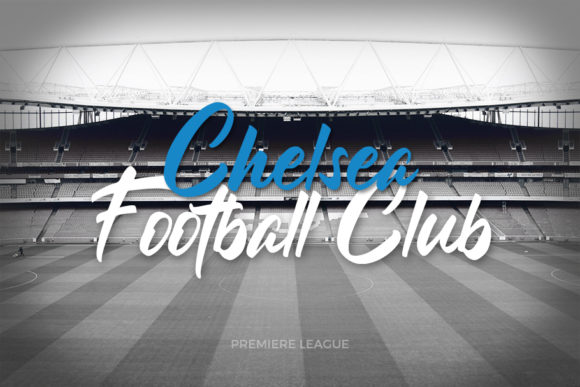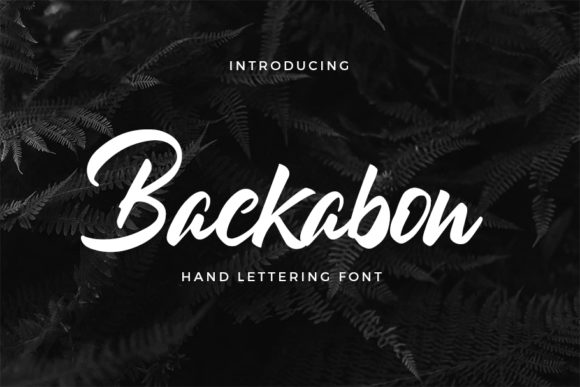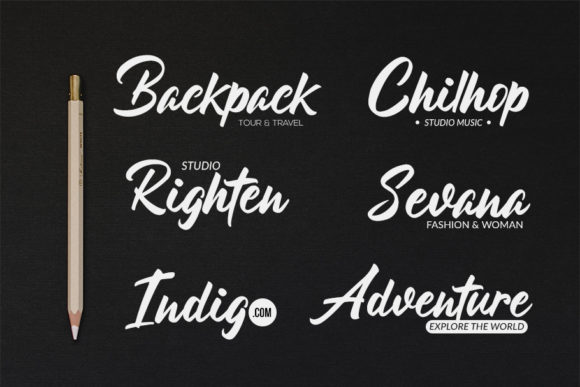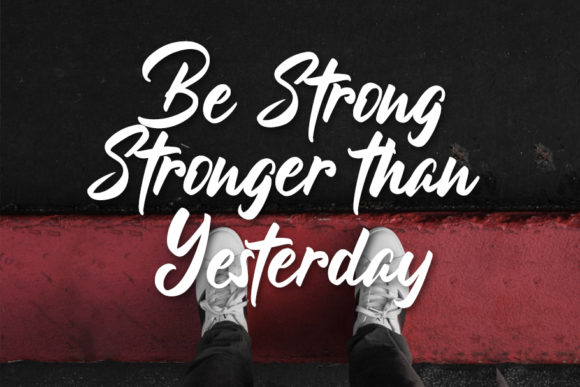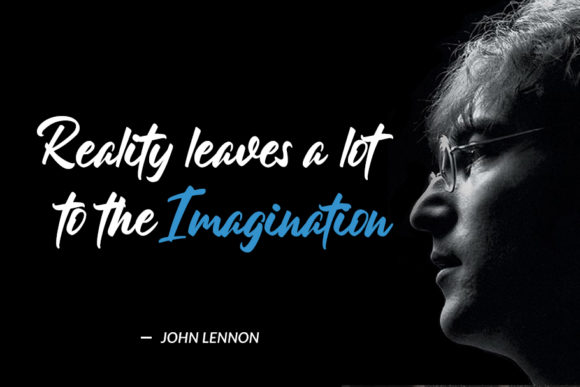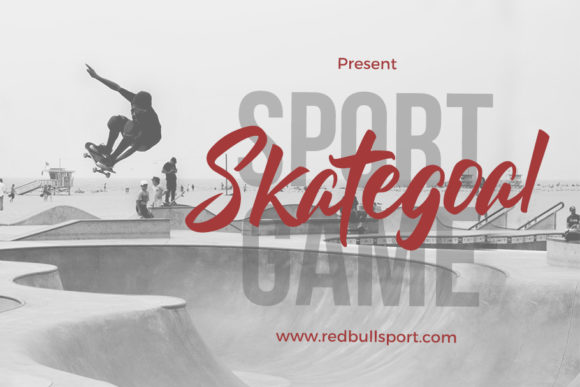
Introducing Backabon Font: The Ultimate Display Font for Bold and Urban Designs
Are you tired of using the same old fonts for your creative projects? Do you want to add a dynamic feel to your designs and make them stand out from the crowd? Look no further than Backabon Font, a unique and stylish display font that’s perfect for designers and crafters alike.
What is Backabon Font?
Backabon Font is a bold and urban display font that’s designed to make a statement. With its sleek and modern look, it’s perfect for adding a touch of sophistication and style to any creative project. Whether you’re working on a logo, brochure, or website, Backabon Font is sure to turn heads.
Key Features of Backabon Font
- Bold and Urban Look: Backabon Font has a bold and urban look that’s perfect for making a statement.
- Unique Design: With its unique design, Backabon Font is sure to stand out from the crowd.
- Dynamic Feel: Backabon Font adds a dynamic feel to any creative project, making it perfect for designers and crafters.
- Easy to Read: Despite its bold look, Backabon Font is easy to read, making it perfect for use in a variety of applications.
Uses for Backabon Font
Backabon Font is a versatile font that can be used in a variety of applications, including:
- Logos and Branding: Backabon Font is perfect for creating bold and eye-catching logos and branding materials.
- Posters and Flyers: Add a dynamic feel to your posters and flyers with Backabon Font.
- Websites and Blogs: Use Backabon Font to add a touch of style and sophistication to your website or blog.
- Social Media Graphics: Backabon Font is perfect for creating eye-catching social media graphics.
Why Choose Backabon Font?
There are many reasons why you should choose Backabon Font for your next creative project. Here are just a few:
- Unique Design: Backabon Font has a unique design that’s sure to stand out from the crowd.
- High-Quality: Backabon Font is a high-quality font that’s designed to look great in any application.
Tips for Using Backabon Font
Here are a few tips for using Backabon Font in your creative projects:
- Use it Sparingly: Because Backabon Font is a bold font, it’s best to use it sparingly to avoid overwhelming your design.
- Pair it with Other Fonts: Backabon Font looks great when paired with other fonts, so don’t be afraid to experiment.
- Experiment with Colors: Backabon Font looks great in a variety of colors, so don’t be afraid to experiment.
Backabon Font is a unique and stylish display font that’s perfect for designers and crafters alike. With its bold and urban look, it’s sure to add a dynamic feel to any creative project. Whether you’re working on a logo, brochure, or website, Backabon Font is a great choice. So why wait? Download Backabon Font today and start creating amazing designs!